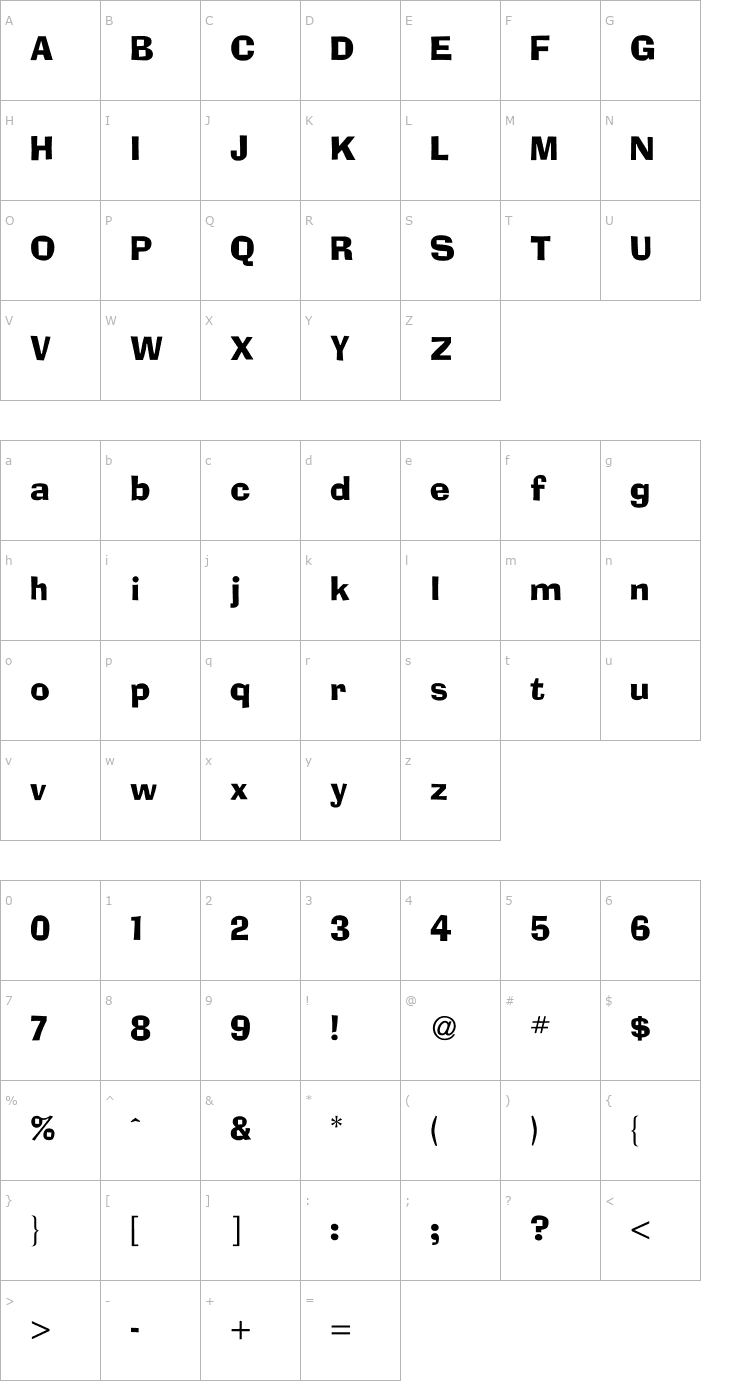
Ad Lib Font
Ad Lib Font - Uncategorized 10474 downloads download license. Web buy ad lib regular desktop font from image club on fonts.com. Ad lib was featured on the boxes of the 1996 mgm/ua reissue. Web buy ad lib regular desktop font from unknown on fonts.com. No license available similar fonts. Click now to create a custom image with your own. Web ad lib was used in signage around nickelodeon studios alternately with the network's balloon font. Web free download of adlib font.
Web free download of adlib font. Web ad lib was used in signage around nickelodeon studios alternately with the network's balloon font. No license available similar fonts. Click now to create a custom image with your own. Ad lib was featured on the boxes of the 1996 mgm/ua reissue. Uncategorized 10474 downloads download license. Web buy ad lib regular desktop font from unknown on fonts.com. Web buy ad lib regular desktop font from image club on fonts.com.
Uncategorized 10474 downloads download license. Web free download of adlib font. Web buy ad lib regular desktop font from image club on fonts.com. No license available similar fonts. Click now to create a custom image with your own. Ad lib was featured on the boxes of the 1996 mgm/ua reissue. Web buy ad lib regular desktop font from unknown on fonts.com. Web ad lib was used in signage around nickelodeon studios alternately with the network's balloon font.
Ad lib was featured on the boxes of the 1996 mgm/ua reissue. Web buy ad lib regular desktop font from unknown on fonts.com. Click now to create a custom image with your own. Web ad lib was used in signage around nickelodeon studios alternately with the network's balloon font. Uncategorized 10474 downloads download license.
Web free download of adlib font. Uncategorized 10474 downloads download license. Web ad lib was used in signage around nickelodeon studios alternately with the network's balloon font. Web buy ad lib regular desktop font from unknown on fonts.com. Click now to create a custom image with your own.
Web buy ad lib regular desktop font from image club on fonts.com. Web ad lib was used in signage around nickelodeon studios alternately with the network's balloon font. Uncategorized 10474 downloads download license. Web free download of adlib font. Click now to create a custom image with your own.
Uncategorized 10474 downloads download license. Click now to create a custom image with your own. Web buy ad lib regular desktop font from unknown on fonts.com. Web ad lib was used in signage around nickelodeon studios alternately with the network's balloon font. Web free download of adlib font.
No license available similar fonts. Ad lib was featured on the boxes of the 1996 mgm/ua reissue. Click now to create a custom image with your own. Web buy ad lib regular desktop font from unknown on fonts.com. Web free download of adlib font.
No license available similar fonts. Web free download of adlib font. Web buy ad lib regular desktop font from image club on fonts.com. Ad lib was featured on the boxes of the 1996 mgm/ua reissue. Uncategorized 10474 downloads download license.
No license available similar fonts. Click now to create a custom image with your own. Web free download of adlib font. Web ad lib was used in signage around nickelodeon studios alternately with the network's balloon font. Uncategorized 10474 downloads download license.
Web ad lib was used in signage around nickelodeon studios alternately with the network's balloon font. Web buy ad lib regular desktop font from unknown on fonts.com. Click now to create a custom image with your own. No license available similar fonts. Web buy ad lib regular desktop font from image club on fonts.com.
Uncategorized 10474 downloads download license. Web buy ad lib regular desktop font from unknown on fonts.com. Web ad lib was used in signage around nickelodeon studios alternately with the network's balloon font. Web buy ad lib regular desktop font from image club on fonts.com. Click now to create a custom image with your own.
Click now to create a custom image with your own. Web buy ad lib regular desktop font from unknown on fonts.com. Web ad lib was used in signage around nickelodeon studios alternately with the network's balloon font. Web free download of adlib font.
No license available similar fonts. Ad lib was featured on the boxes of the 1996 mgm/ua reissue.